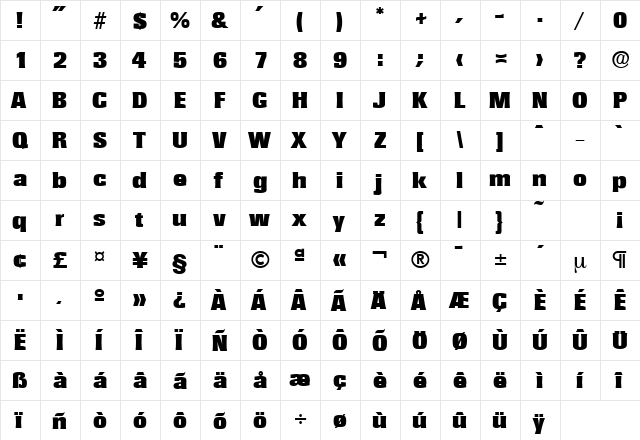
Rochester-Serial-Black Regular
Design Context for Rochester-Serial-Black Typeface
Rochester-Serial-Black offers clean, dependable letterforms without strong stylistic allegiance, making it a practical choice for designers who need flexibility.